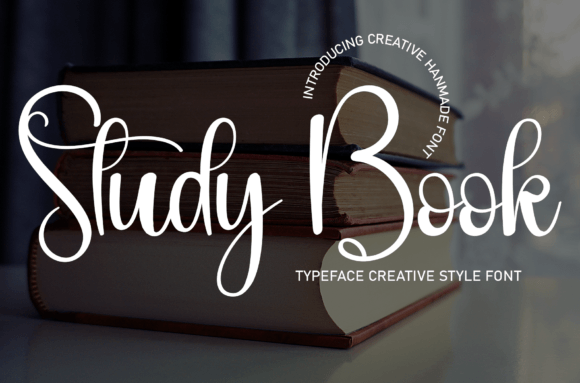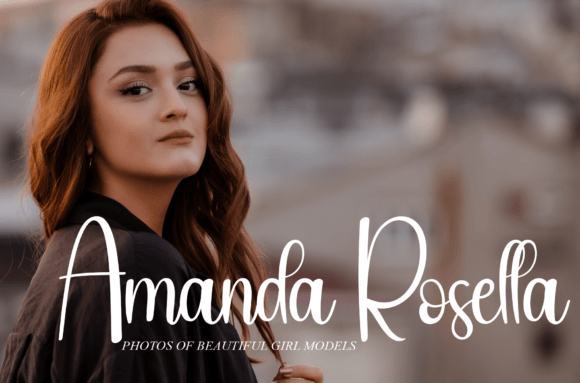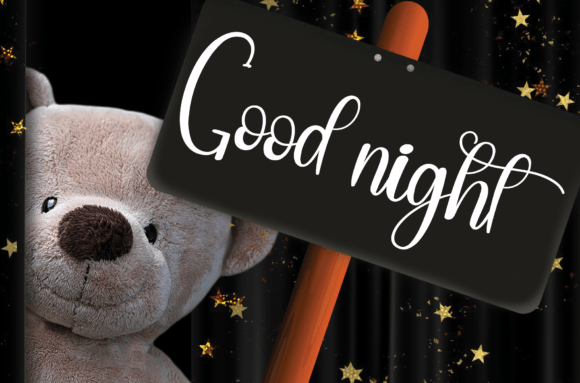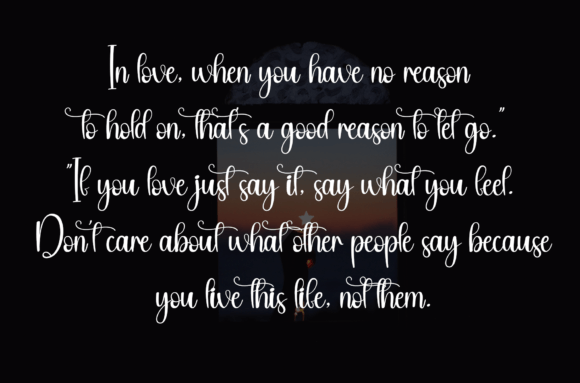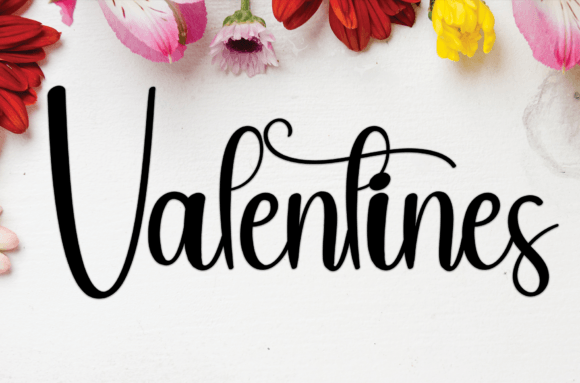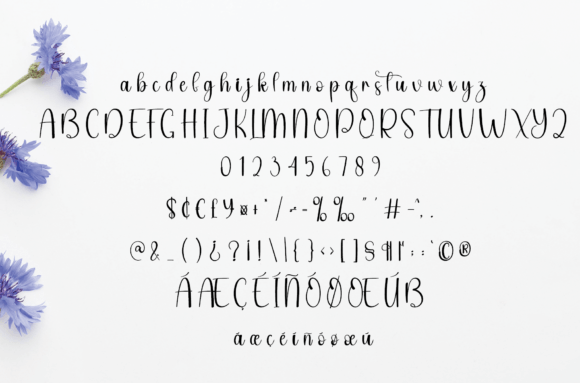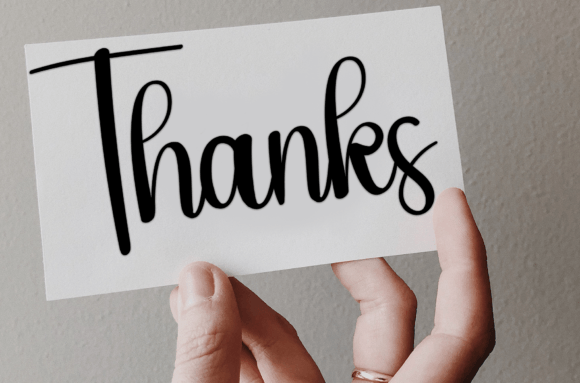
Study Book
Study Book is a sweet handwritten font. Friendly and cute, this font is ideal for writing wedding invitations, cards, or any other design that might need a fun touch!